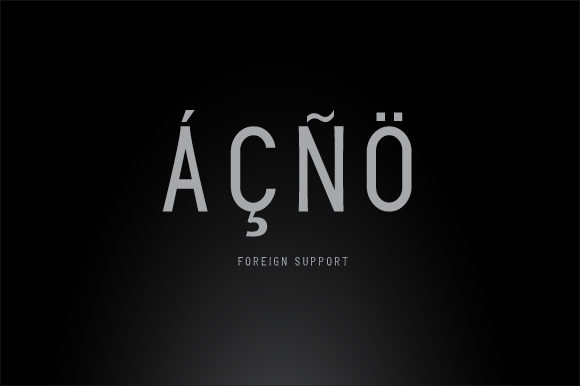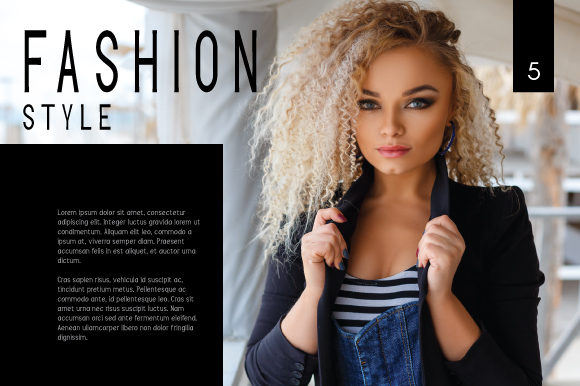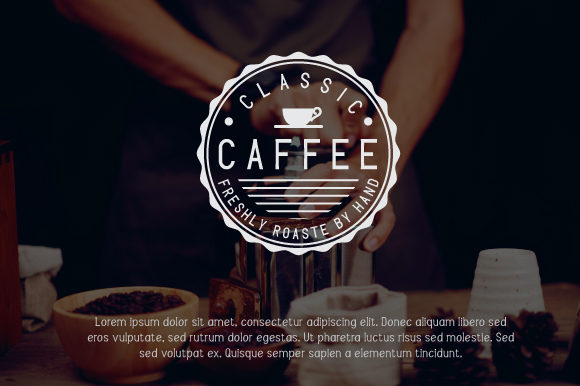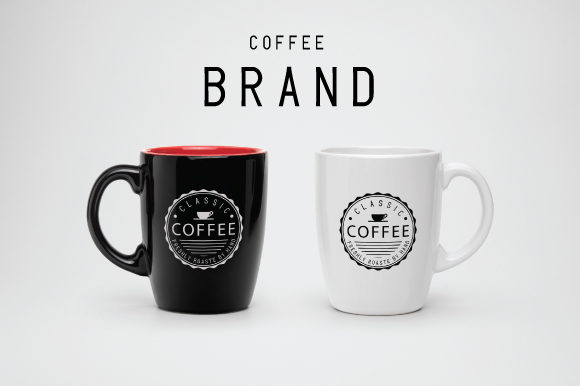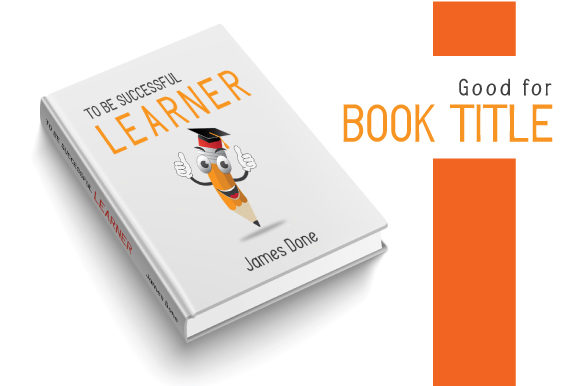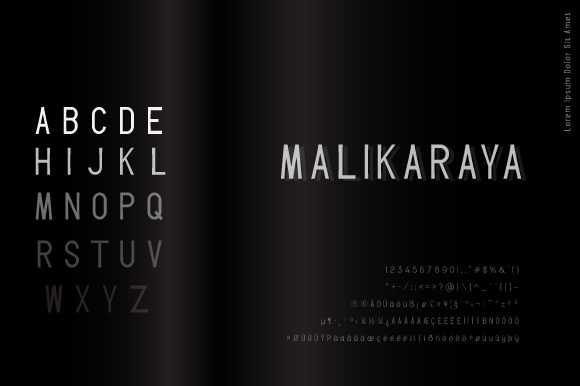
Introduction to Malikaraya Font
As a designer, there’s nothing quite like the rush of discovering a new font that perfectly captures the essence of your creative project. It’s that moment when the words on the page come alive, and the design begins to take shape. For me, that moment happened when I stumbled upon the Malikaraya Font, a modern sans serif font that exudes high-quality sophistication.
With its clean style and transparent background, the Malikaraya Font is a design resource that can elevate any creative project. Whether you’re working on a book title, a fashion magazine, or a branding campaign, this font is sure to make a lasting impression. And the best part? It’s available for free download, making it an invaluable resource for designers on a budget.
Key Features of Malikaraya Font
- High-quality, modern design suitable for creative projects and design resources.
- Features a transparent background, making it easy to layer and combine with other design elements.
- Designed with a unique, elegant style that adds a touch of sophistication to any design.
- Comes in a range of sizes, from 12pt to 72pt, to accommodate various design needs.
- Resolution-independent, ensuring crisp and clear text display regardless of screen resolution or size.
- Perfect for designers and artists working on creative projects, including graphic design, typography, and digital art.
Honest Review: Malikaraya Font
I recently stumbled upon the Malikaraya Font, and I must say it’s been a great addition to my design resources. This font is perfect for creating visually appealing text overlays on transparent backgrounds, making it ideal for motion graphics and creative projects.
What works well: ✨ The Malikaraya Font has a unique and stylish design that adds a touch of sophistication to any project. The high-quality font files ensure smooth rendering, and the transparent background feature allows for seamless integration with other design elements. Additionally, the font is available for free download, making it an excellent resource for designers on a budget.
What doesn’t work well: ⚠️ While the Malikaraya Font is a great resource, it’s not without its limitations. The font’s design can be a bit overwhelming if used extensively, and the lack of a comprehensive user manual may lead to some trial and error when it comes to customizing the font’s settings.
Overall, I’m impressed with the Malikaraya Font, and I would recommend it to designers working on creative projects that require a high-quality, stylish font. Its free download feature and transparent background capability make it a valuable resource for designers looking to add some flair to their designs.
- Unique and stylish design
- Perfect for motion graphics and creative projects
The Malikaraya Font is ideal for use in creative projects such as logos, business cards, and social media graphics. Its unique style and transparent background make it a versatile design resource for a variety of applications.